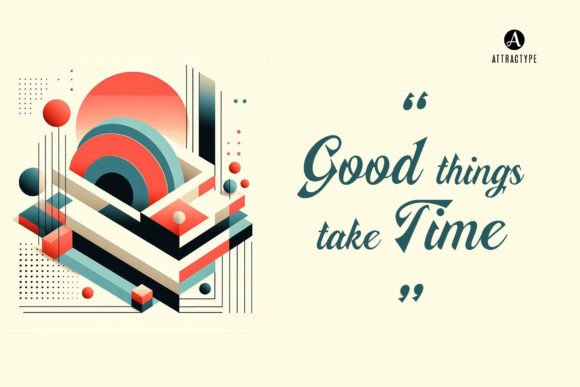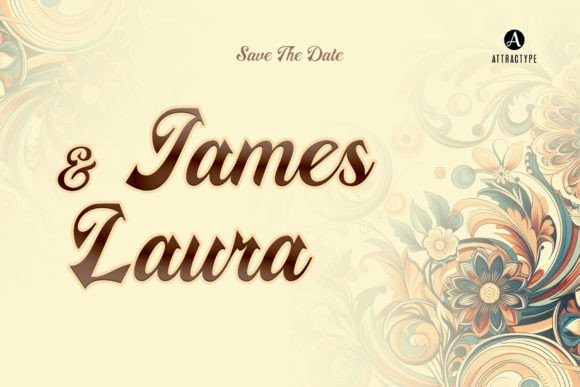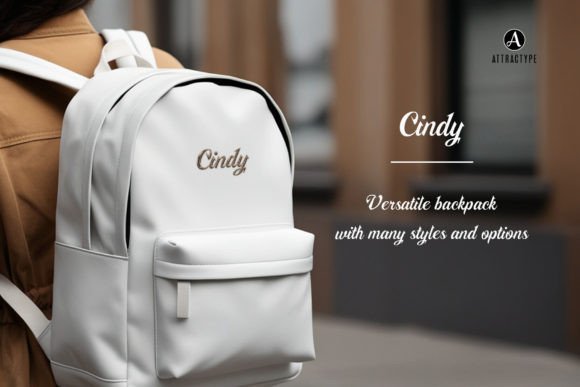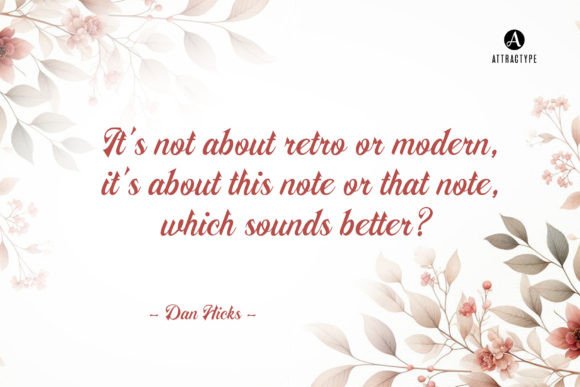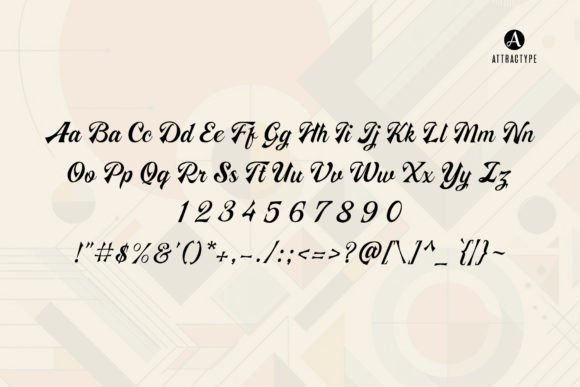
Introduction to Retrocast Font
Retrocast is a retro vintage font style.
This script font is perfect for adding a retro touch to your great designs such as poster designs, magazines, books, social media, logos, stickers, packaging designs, headlines, brand identities, t-shirt or apparel industry, or any other creative design projects while maintaining the beauty and aesthetics .
Key Features of Retrocast Font
Why Choose Retrocast Font?
Retrocast Font offers exceptional quality and versatility, making it a valuable addition to your design toolkit. Whether you’re creating for personal projects or commercial use, Retrocast Font delivers professional results.